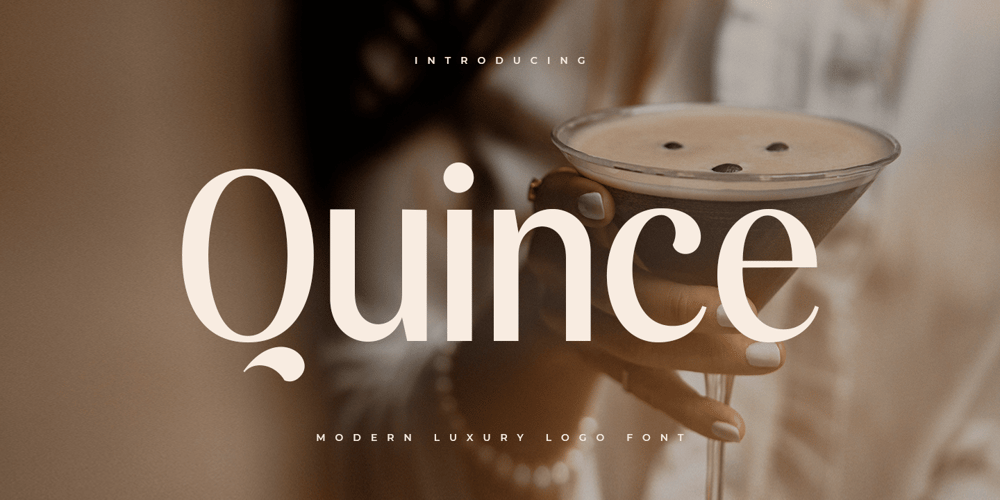
Quince Style Font Family was designed by Zamroni Hamzah and published by Sensatype Studio. Quince Style contains 1 styles and family package options. A Luxury Elegant Beauty font that we created special for elegant branding needs, with unique shape will be ready to add value of your brand. It so nice to leverage designer or product owner that need solutions to make their design look more stylish and modern. And specially for Quince font, We prepared any characters to help you create unlimited variations for your creative needs.Quince Modern Luxury Logo Font ready with: Unique Luxury Characters Preview as a inspirations that you can do with Quince font Ready with Lowercase and Uppercase characters Wish you enjoy our font. ๐